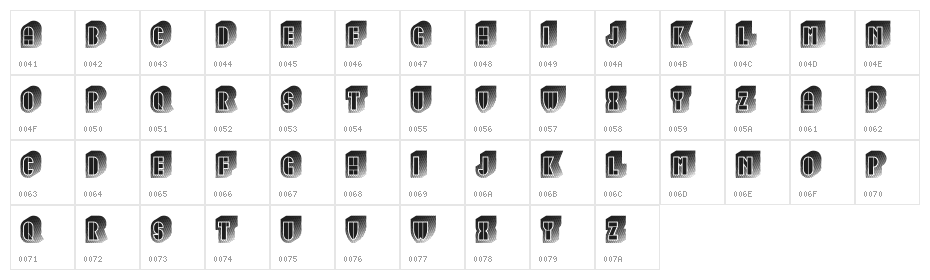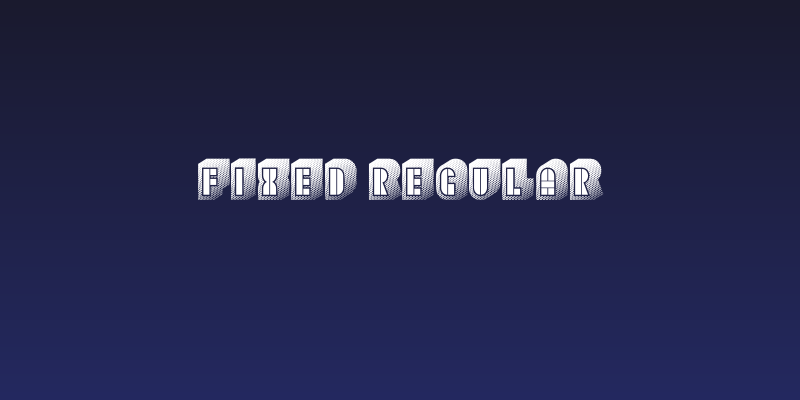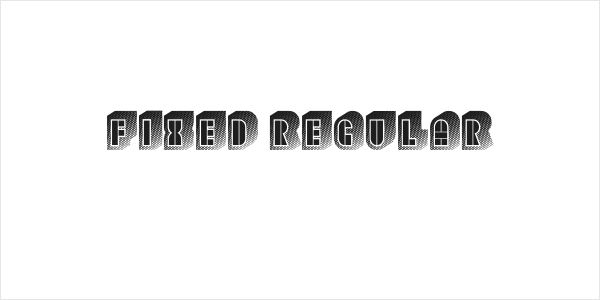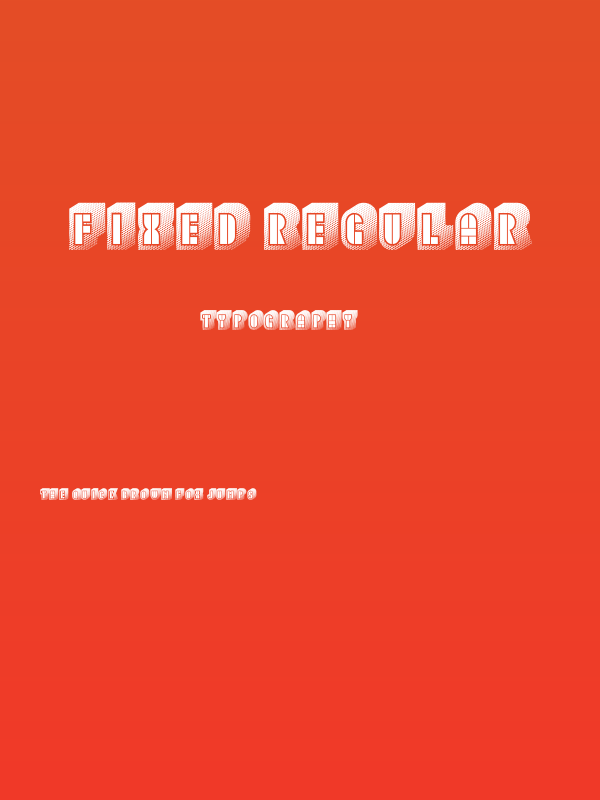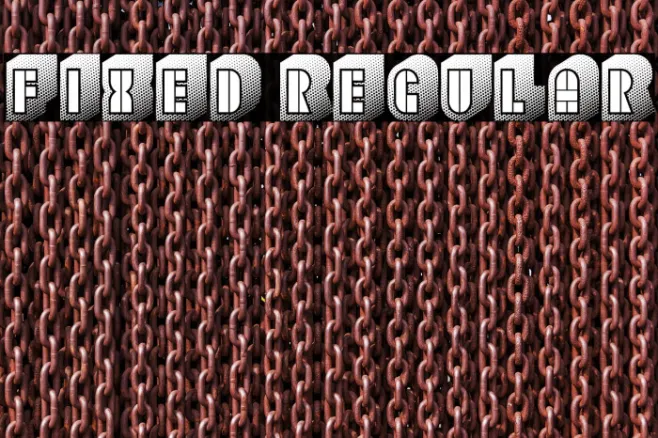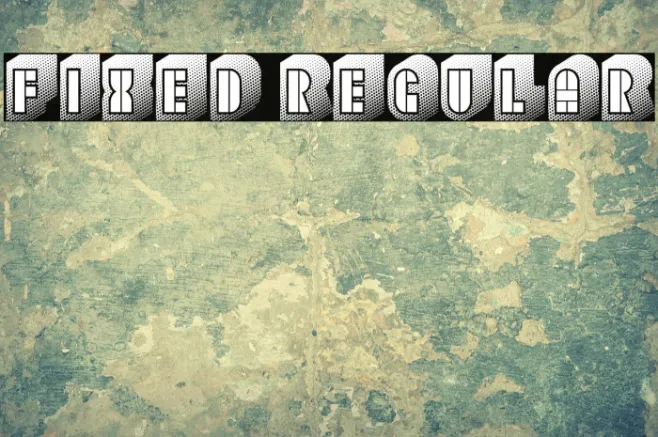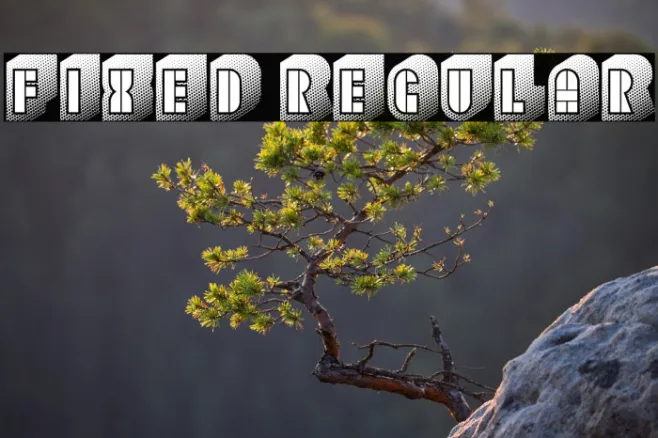
Fixed Regular Font
Fixed Regular Description
This font features a bold, geometric design with a distinct three-dimensional effect. Each character is crafted with a shadowed, block-like appearance, giving it a strong and impactful presence. The letters are filled with a dotted pattern, adding texture and depth. The overall style is modern and eye-catching, making it suitable for attention-grabbing headlines or creative projects. The uppercase letters are consistent in height and width, maintaining a uniform look across the alphabet. The unique design elements make it stand out, offering a playful yet structured aesthetic.